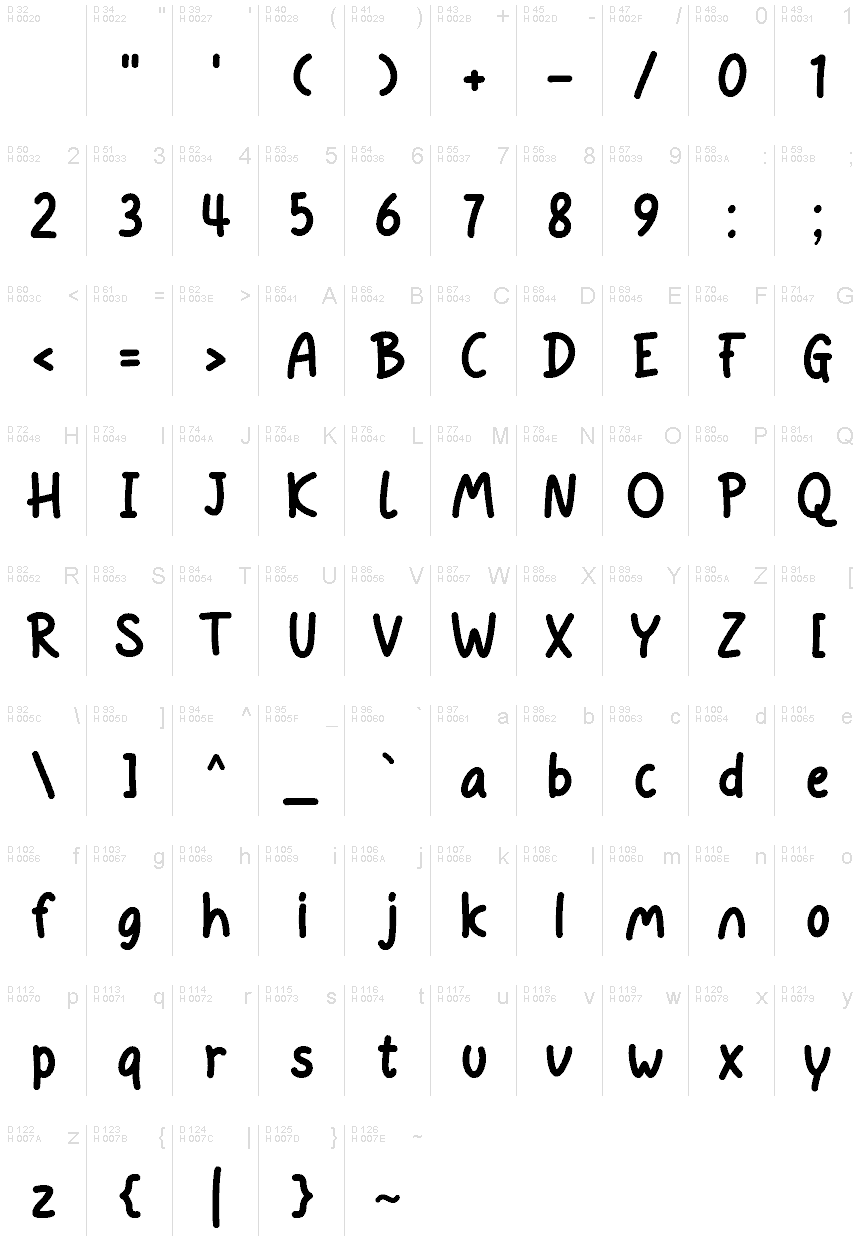
Smart Kids - Demo
Smart Kids font is a handwritten typeface designed by Tera Asset Garage. Its smooth curves and casual feel make it approachable and friendly, encapsulating a youthful, modern vibe. This free handwriting font adds personality to your project with its friendly geometrics that bring accuracy and discipline.